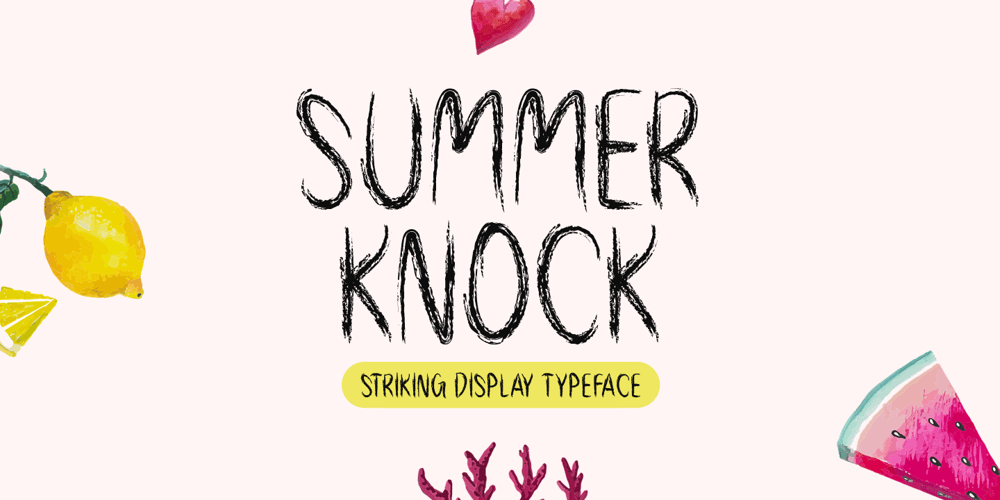
Summer Knock
Summer Knock font
Summer Knock Font Family was designed by Md Shohail Bhuian and published by Seemly Fonts. Summer Knock contains 1 styles and family package options. Summer Knock is a unique and interesting display font. A little bit quirky, this font is a great choice for a wide variety of contexts!It looks stunning on thank you cards, quotes, greeting cards, logos, business cards, and every other design which needs a creative spark.